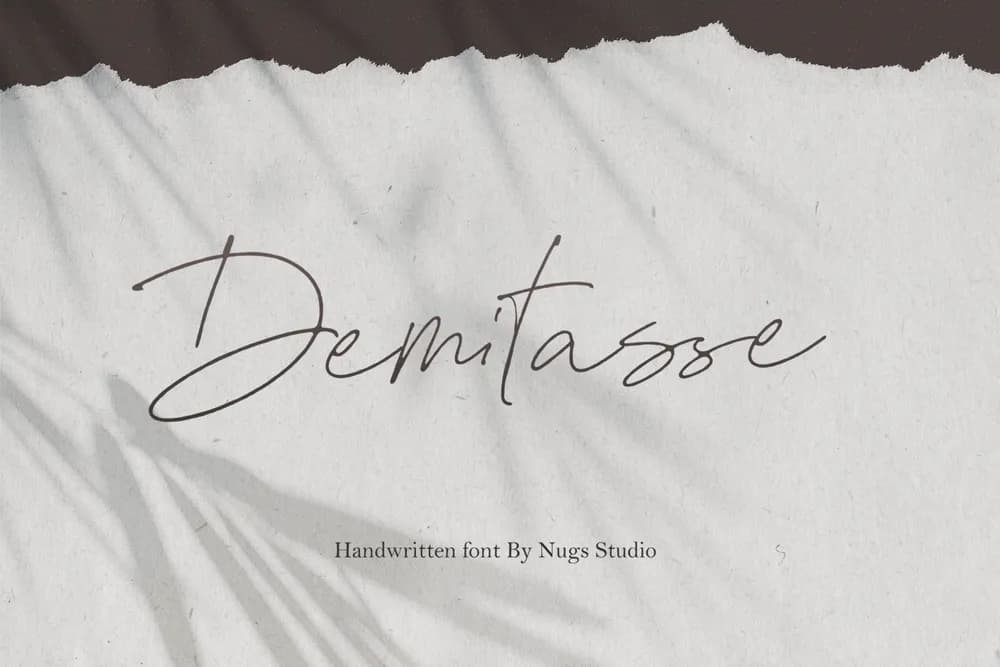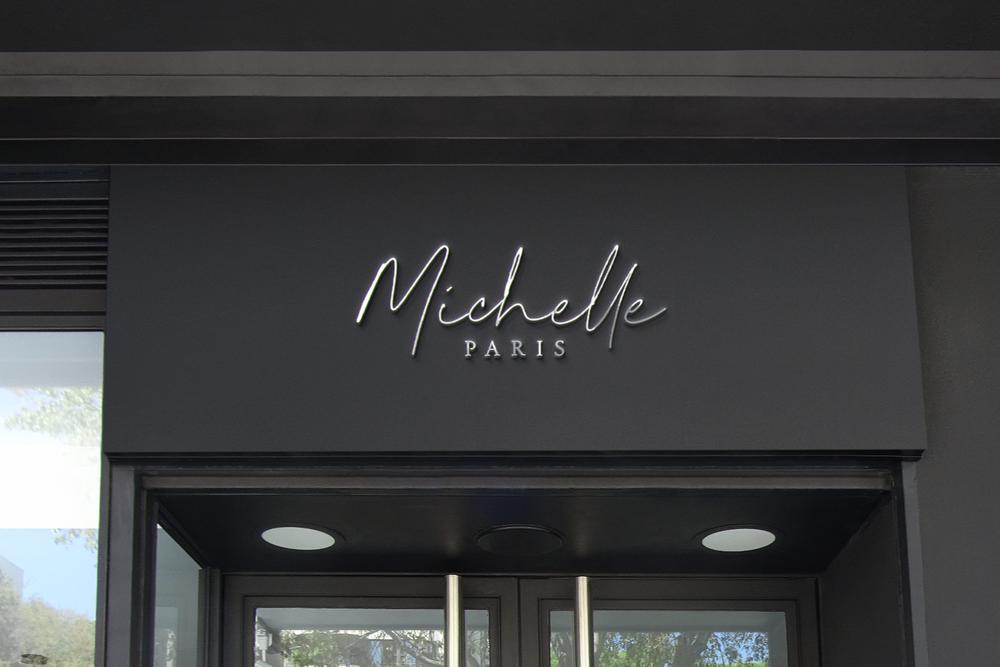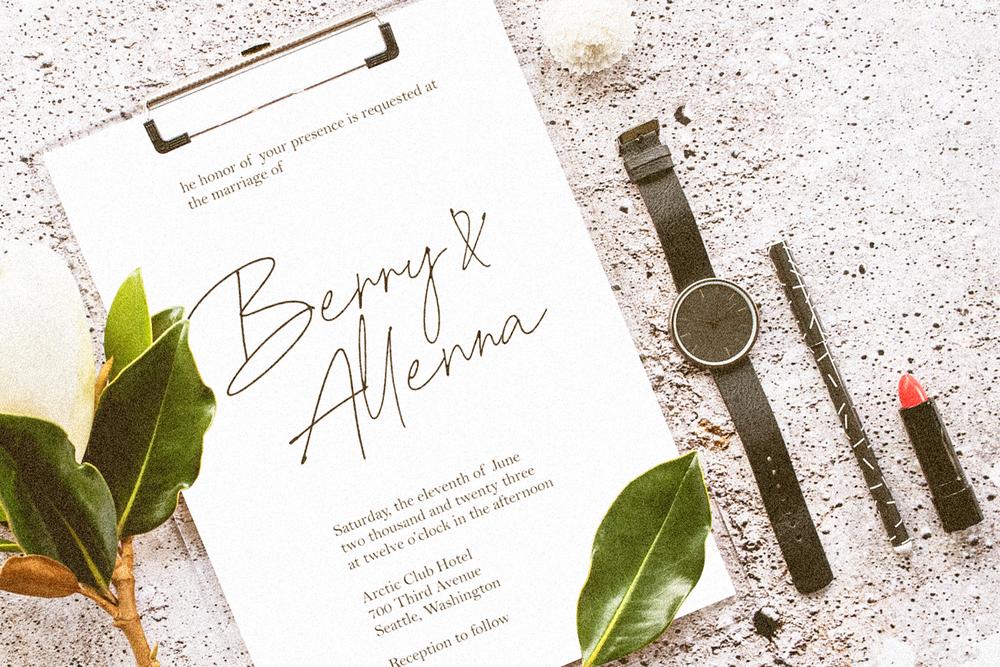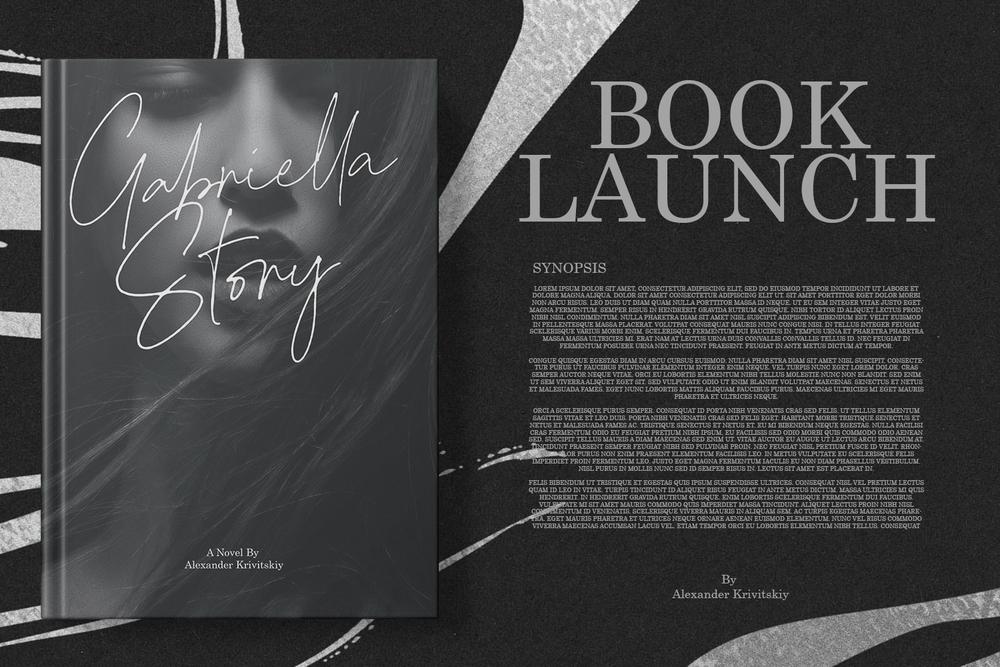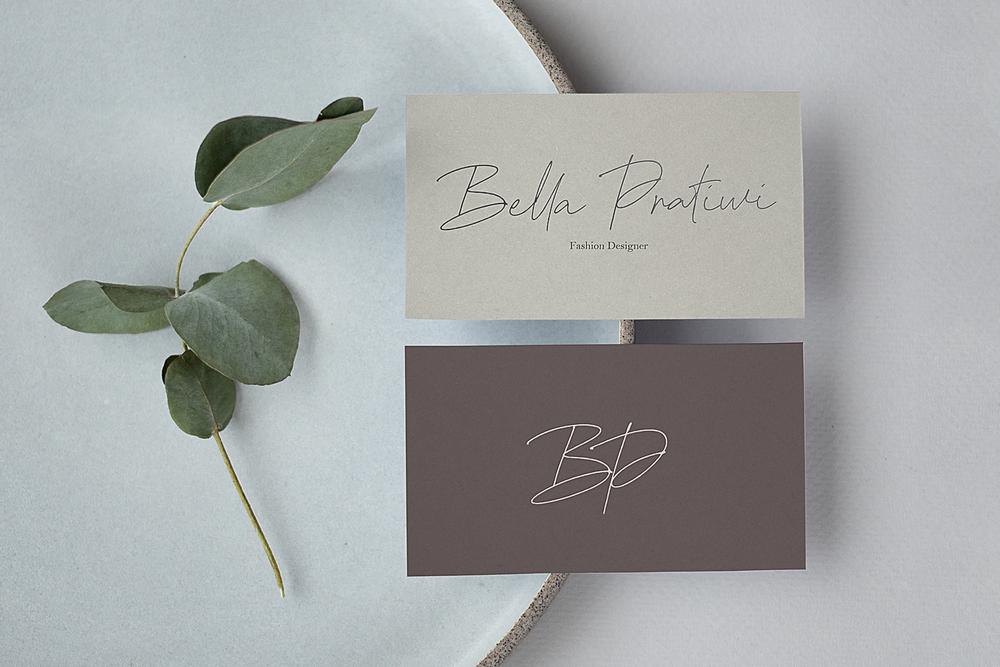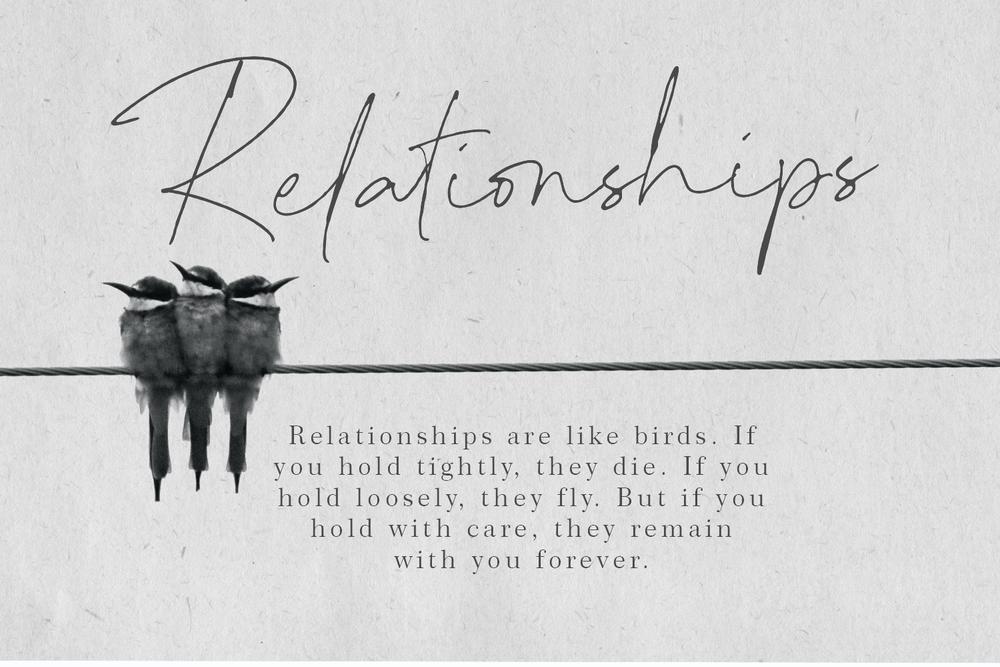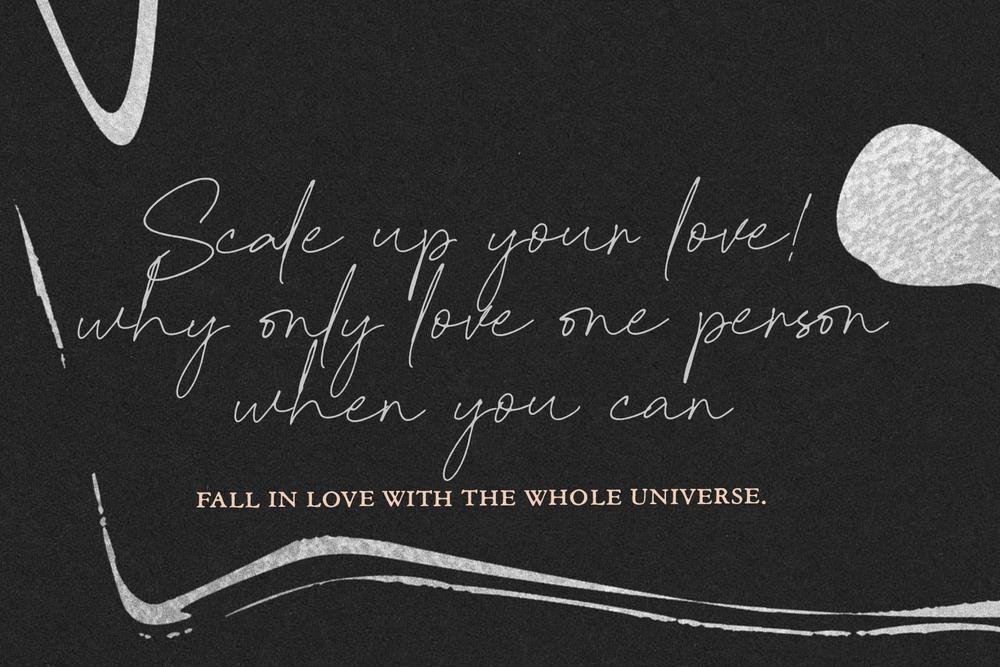
Proudly present Demitasse -, A luxury script that has own unique style & modern look. This typeface is perfect for an elegant & luxury logo, book or movie title design, fashion brand, magazine, clothes, lettering, quotes, and so much more. Product Content : TTF OTF WOFF Features : Uppercase and Lowercase Numerals Punctuations (OpenType Standard) Accents (Multilingual Characters) Works on PC and Mac Simple installations Thank You.